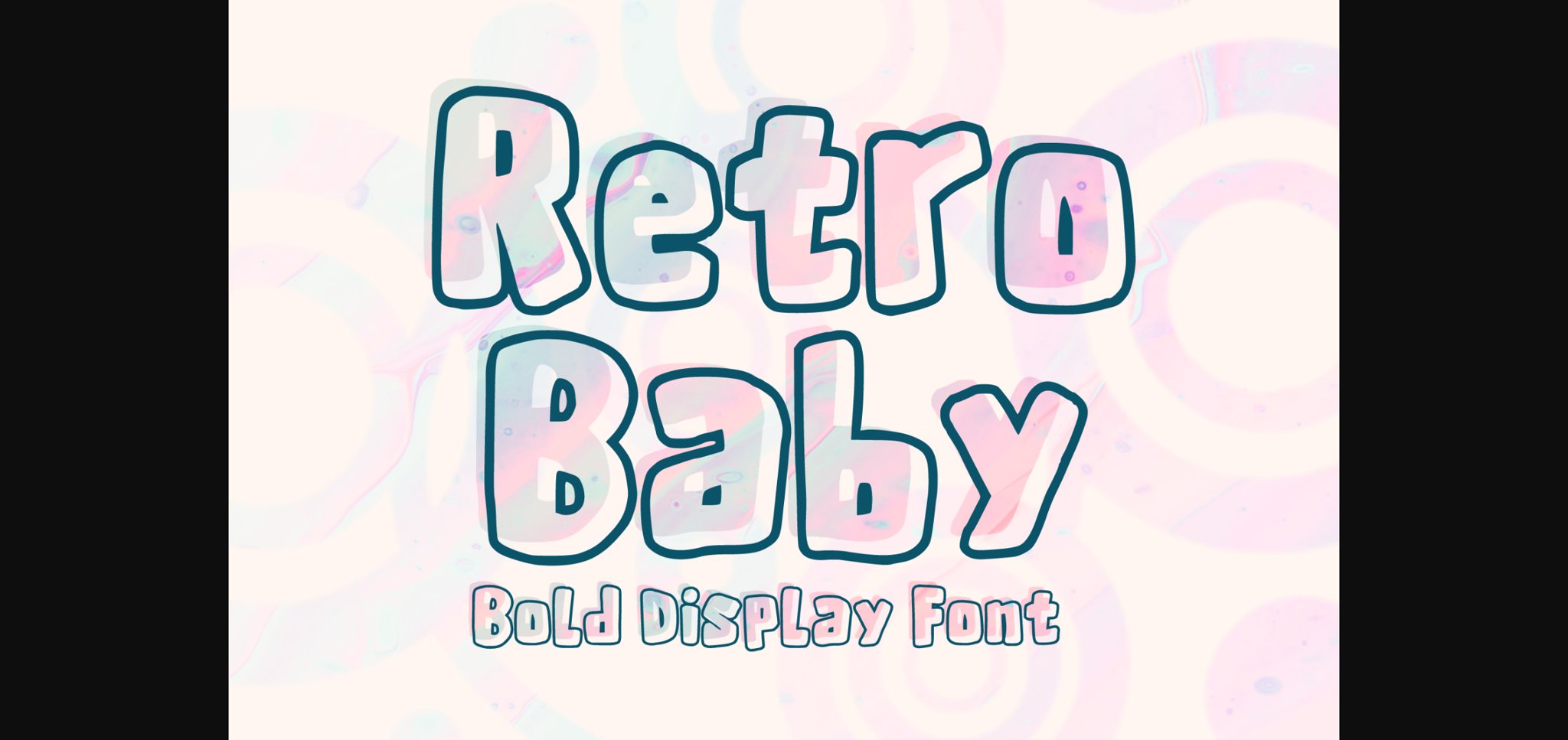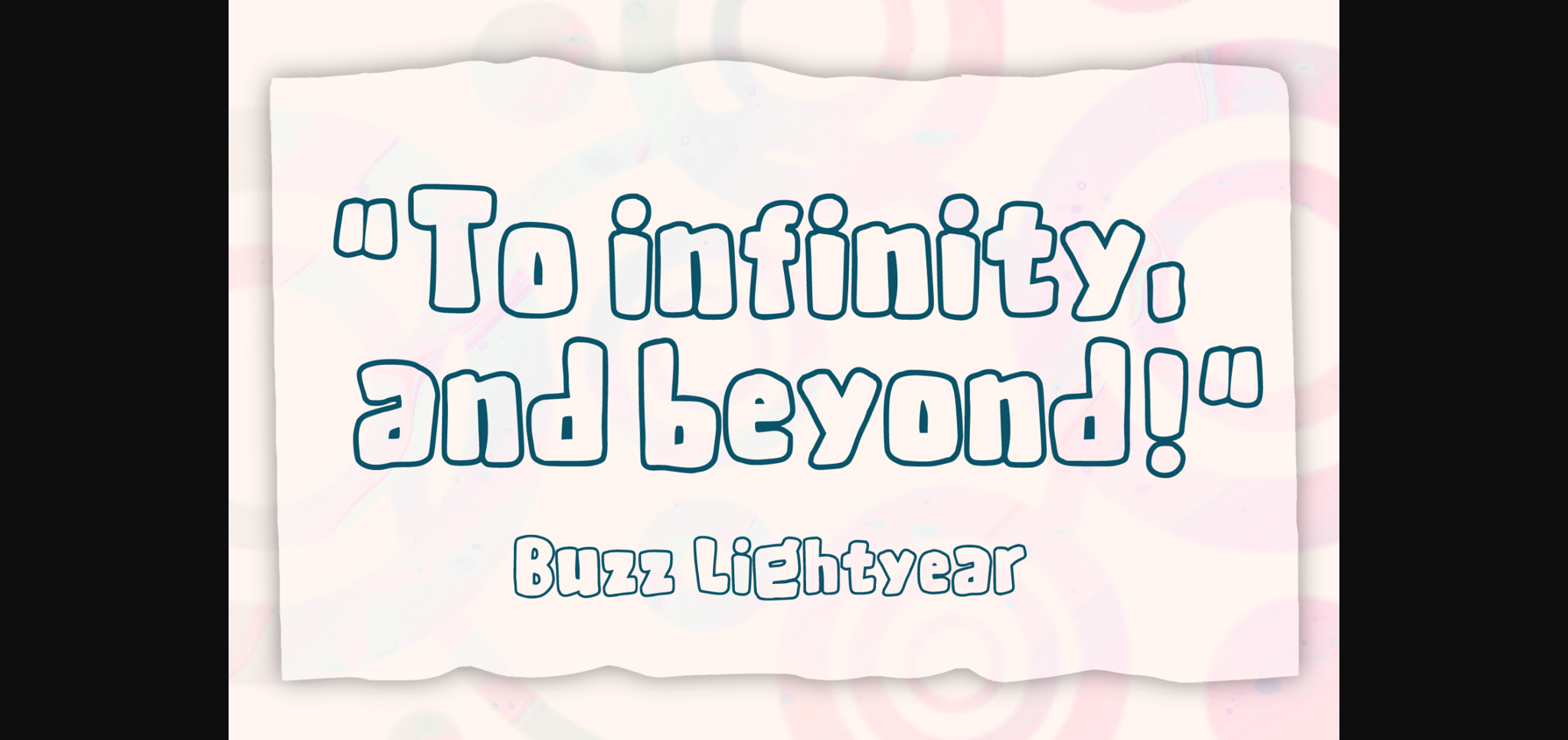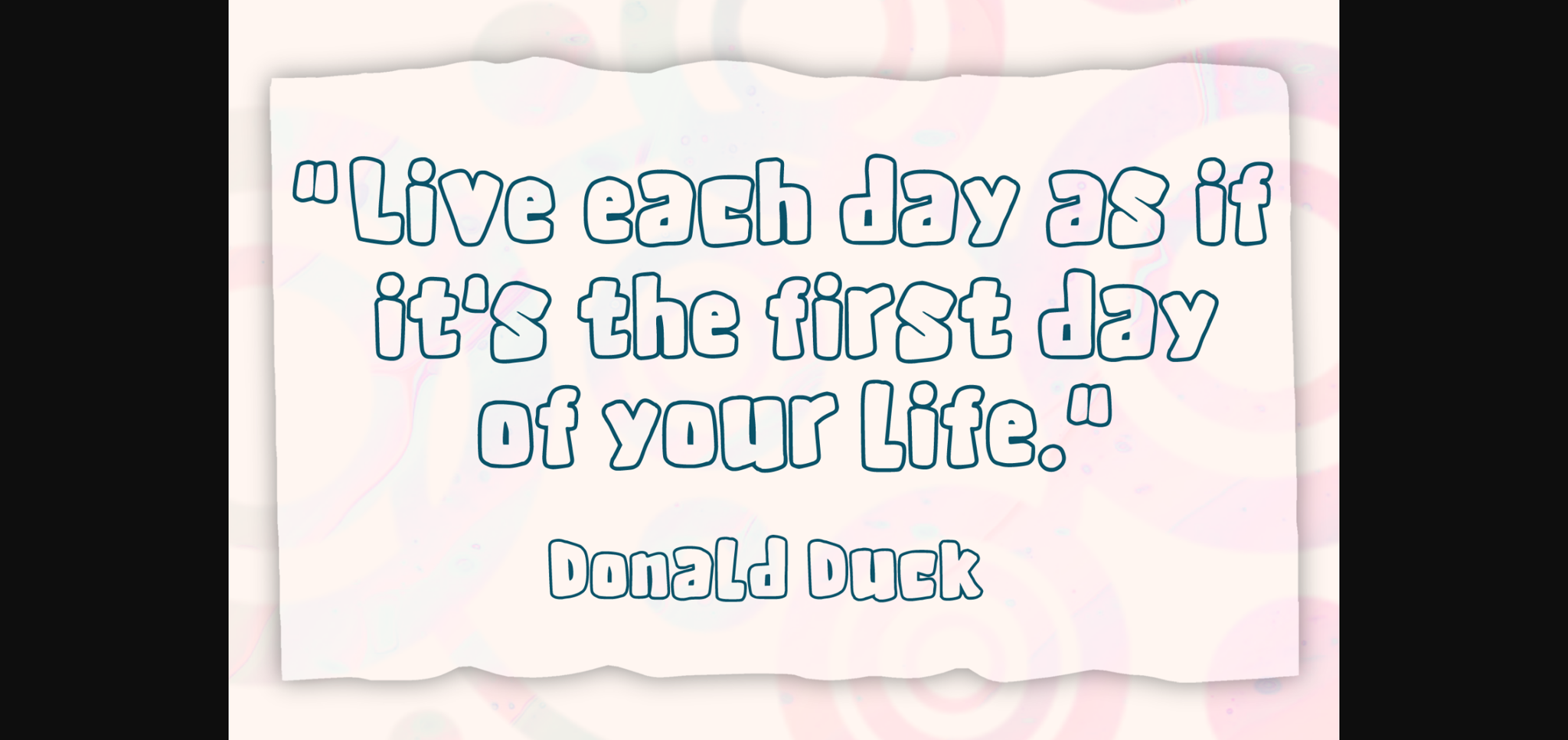
About Retro Baby Font
Retro Baby is a fun and playful display font. You can use it for anything ranging from t-shirts, kids’ book designs, greeting cards, stickers, and posters, or anything that needs a casual touch. Fall in love with its incredibly versatile style, and use it to create lovely designs!